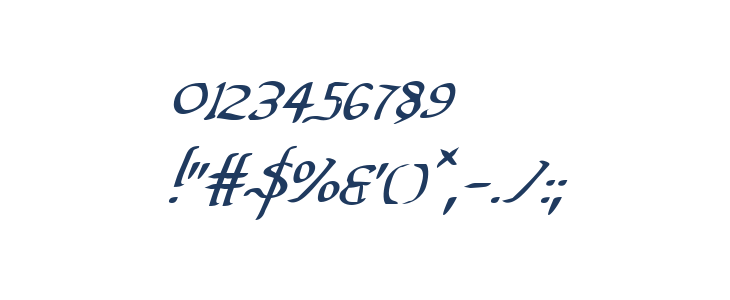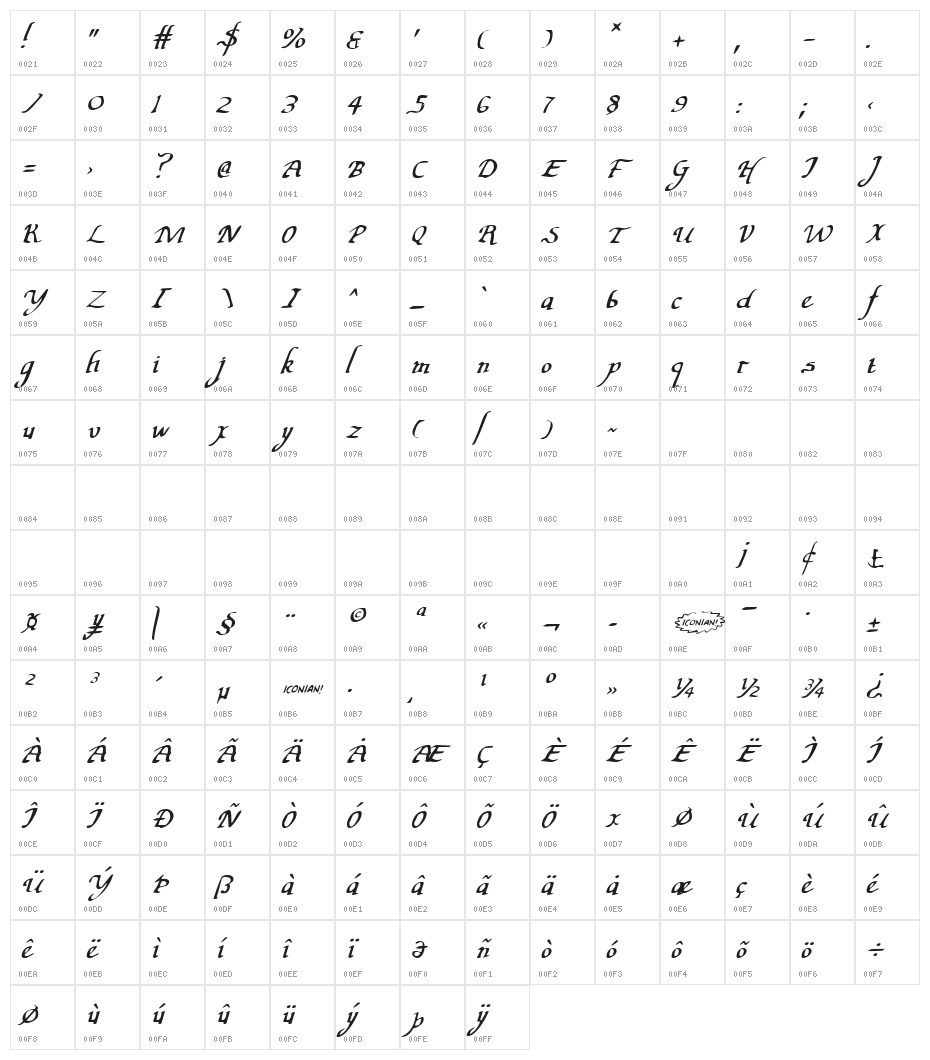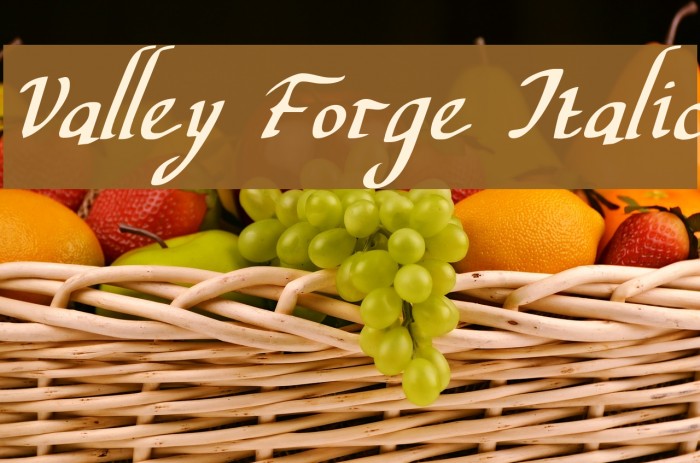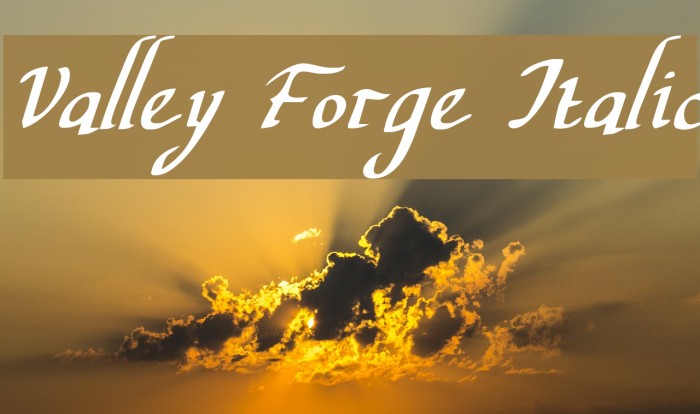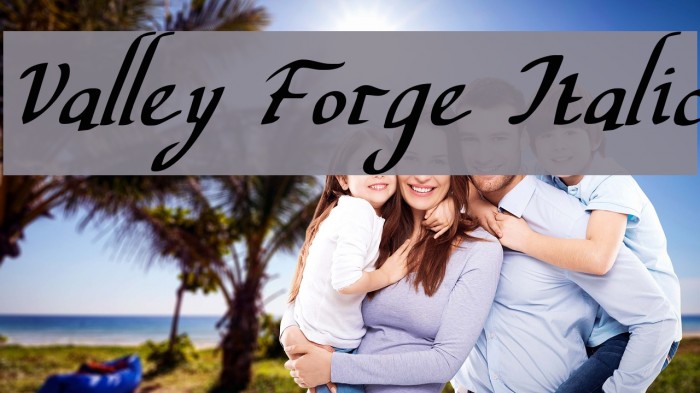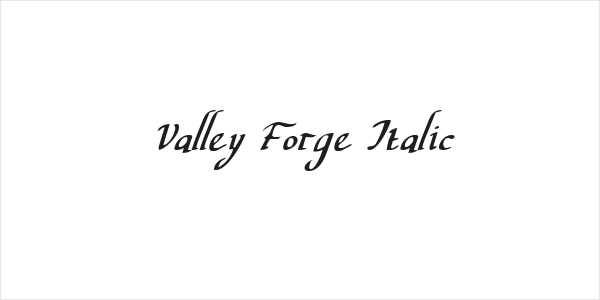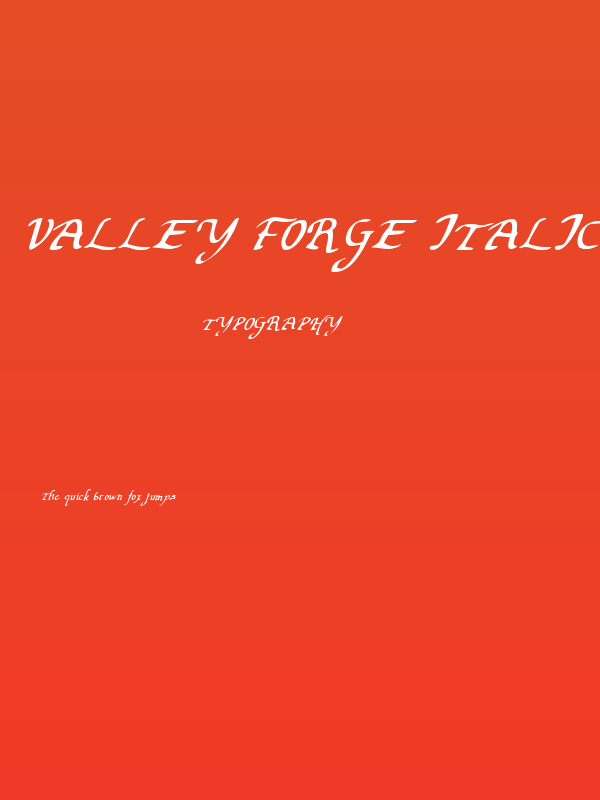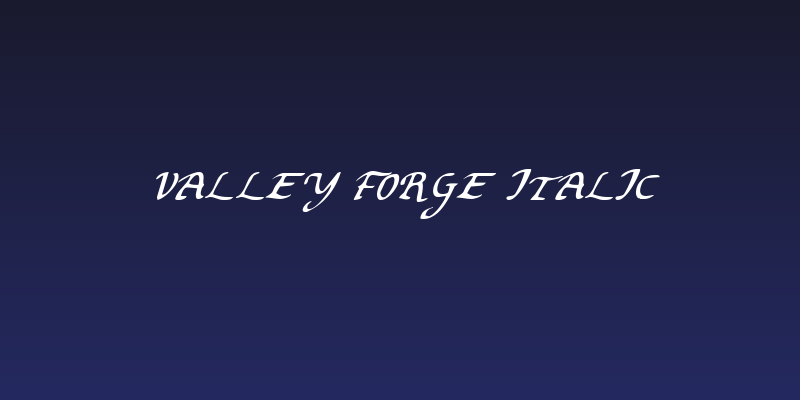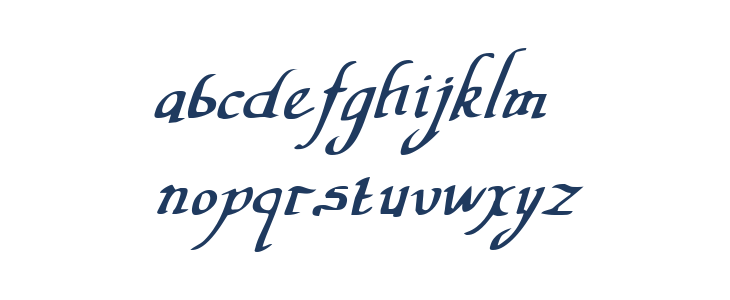
Valley Forge Italic Font
Valley Forge Italic Description
This font features a dynamic and flowing italic style, characterized by its elegant and slightly slanted letterforms. The strokes are smooth and fluid, giving it a handwritten appearance with a touch of sophistication. The uppercase letters are bold and prominent, while the lowercase letters maintain a consistent rhythm and flow. The numerals are clear and well-defined, complementing the overall aesthetic. Special characters are creatively designed, adding to the font's versatility. This font exudes a sense of elegance and grace, making it suitable for a variety of design projects.
| Use Case | Headlines, Invitations, Branding |
| Proposed Projects | Ideal for wedding invitations, greeting cards, elegant branding, and editorial design. |